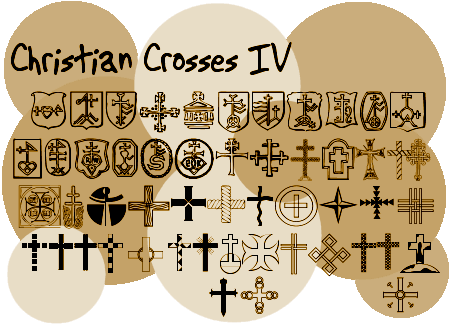
People seem to love to download them as well. I get lots of e-mail from people who use my crosses in their design work. I realized after I made this font that some of the crosses are very similar to the ones I used in #III. But I didn't change it... No 2 crosses are the same, they are just very similar.